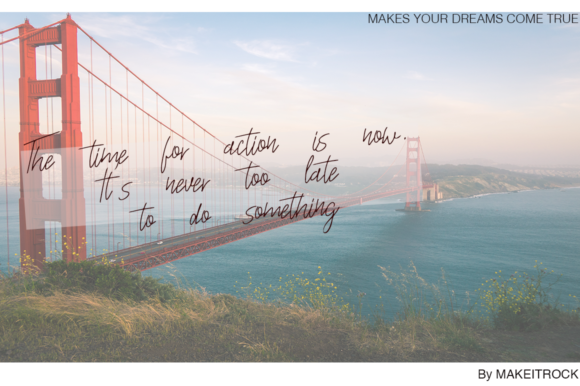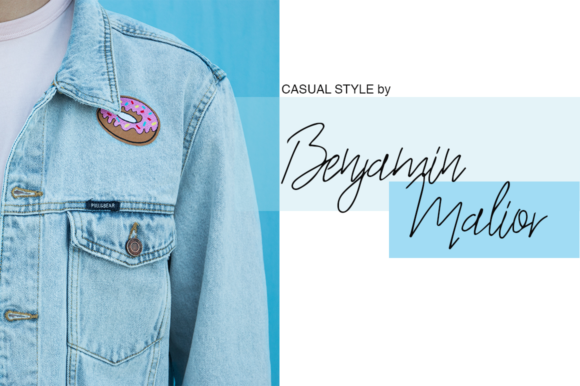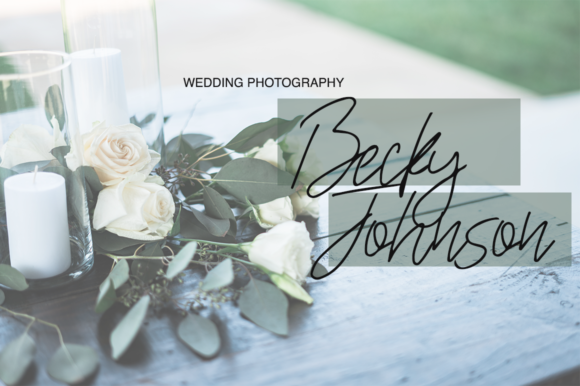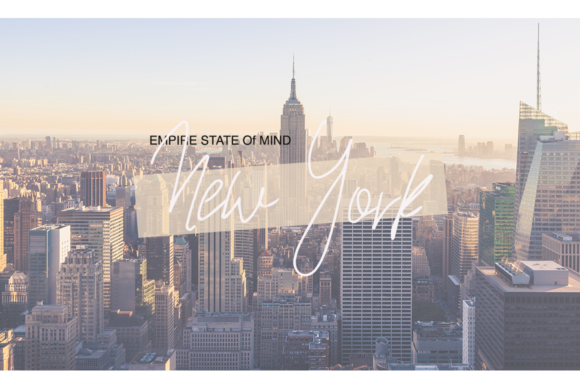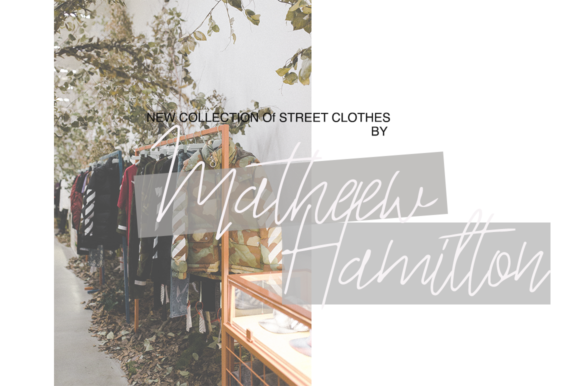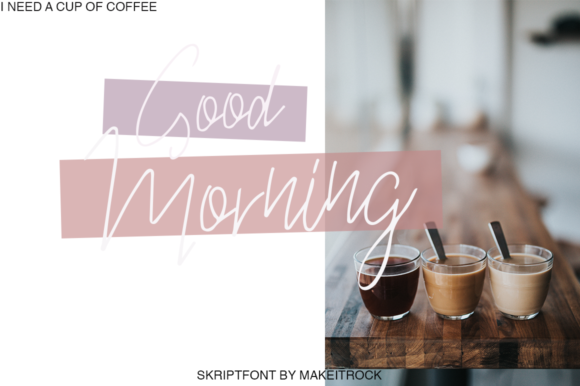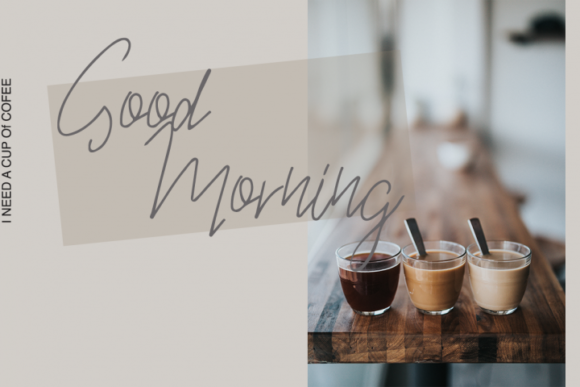
Semmily Font
About Semmily Font
Semmily is a sweet handwritten font. Its suitable for greeting cards, branding materials, business cards, quotes, and for every other design that needs a feminine feel.